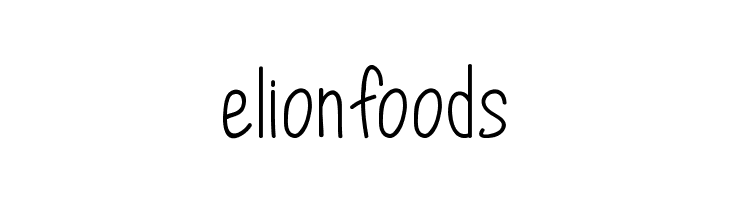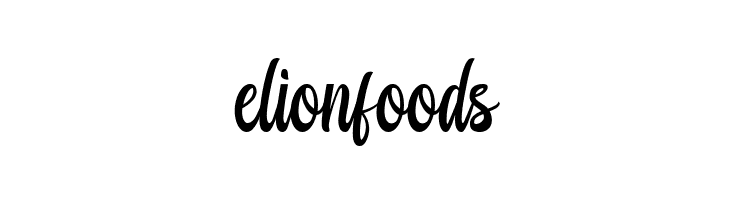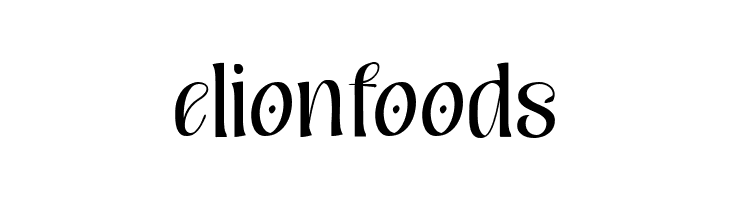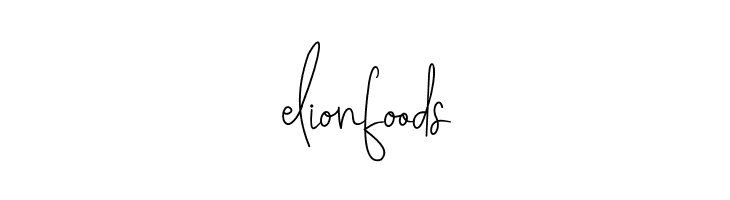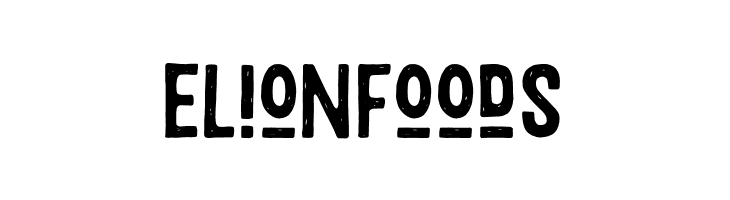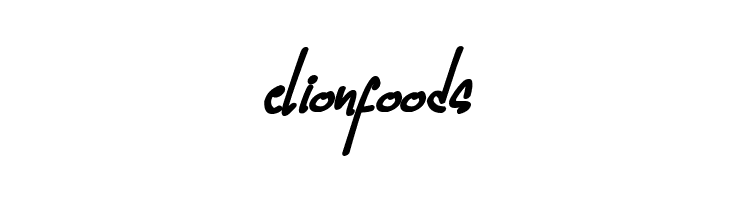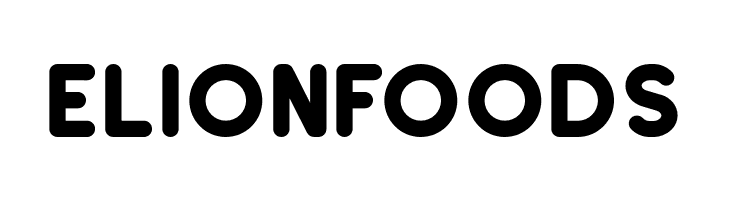
A fluid and elegant script font with a handwritten style.
A playful, handwritten font with rounded, organic letterforms.
An elegant script font with flowing cursive style and intricate swashes.
A modern, playful font with tall, narrow letterforms and a handwritten feel.
A flowing, elegant handwritten font with a casual and sophisticated style.
A playful, handwritten cursive font with thin, elongated strokes.
A modern, geometric font with rounded edges and uniform stroke width.
A bold, hand-drawn font with a playful and artistic style.
A lively script font with fluid, cursive letterforms and a handwritten appearance.
A bold, rounded font with a modern and friendly appearance.